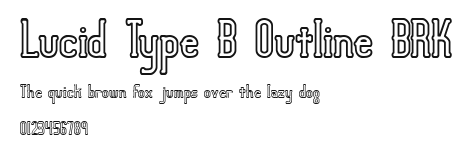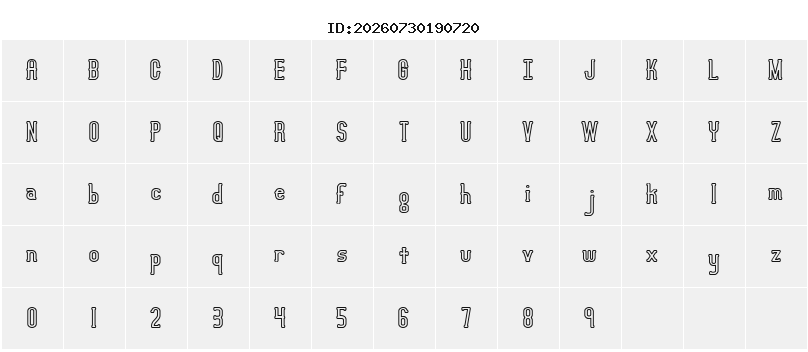
About Lucid Type B Outline BRK.ttf
Lucid Type B Outline BRK.ttf is a modern, elegant sans-serif font designed for ultimate readability and visual harmony. Perfect for branding, headlines, web design, and print materials.